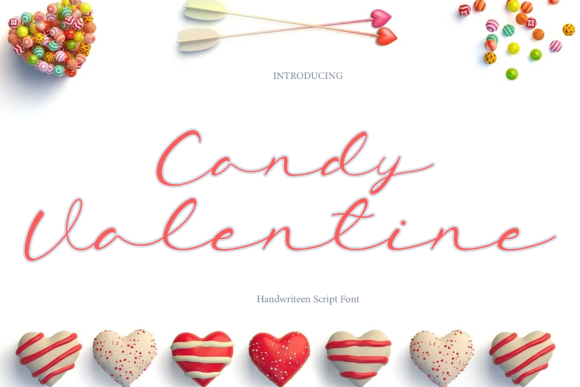
Journey into the world of enchanting elegance with Candy Valentine Font, a script masterpiece that exudes charm and sophistication. This handwritten font, crafted with meticulous care by PAYJHOshop, embodies the essence of romance and personalization, making it the perfect choice for adding a touch of heartfelt charm to your creative endeavors.
Candy Valentine's delicate strokes and graceful curves evoke a sense of timeless beauty, reminiscent of love letters penned by hand. Its inherent charm lies in its ability to transform ordinary words into captivating expressions of affection, making it an ideal font for wedding invitations, heartfelt cards, and any project that yearns for a romantic touch.
Step into a world of endless possibilities, where Candy Valentine's versatility knows no bounds. Its enchanting nature lends itself seamlessly to a myriad of design concepts, from whimsical branding to heartfelt social media posts. Let your creativity soar as you explore the boundless potential of this font, crafting designs that resonate with emotion and leave a lasting impression.
Experience the sheer delight of crafting personalized masterpieces with Candy Valentine. Its elegant swashes and charming characters breathe life into your words, transforming them into visual works of art. Create logos that exude sophistication, letterheads that radiate warmth, and social media graphics that capture hearts. The possibilities are limitless, bound only by your imagination.
Candy Valentine beckons you to embrace the magic of handwritten elegance, to infuse your designs with a touch of timeless charm. With its delicate strokes and captivating personality, this font is an invaluable asset for designers, bloggers, and creative entrepreneurs seeking to make a lasting impact.
Immerse yourself in the world of Candy Valentine, a font that embodies the essence of love, romance, and heartfelt expression. Let its enchanting strokes guide your creativity, transforming your designs into captivating works of art that resonate with emotion and leave an unforgettable impression.